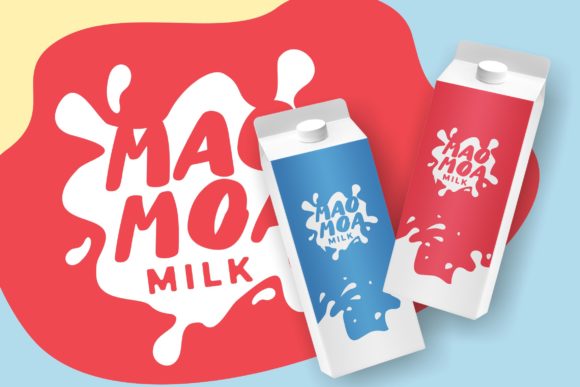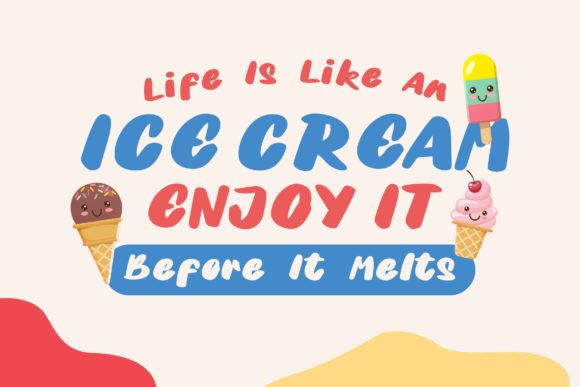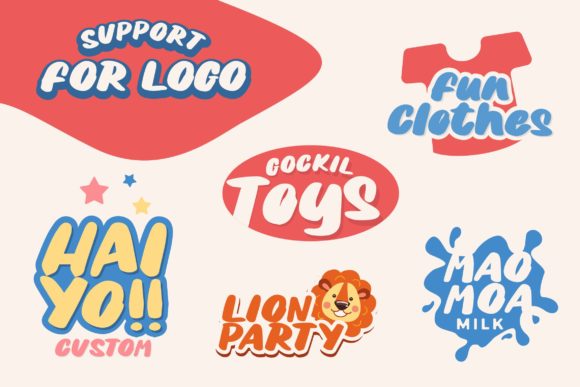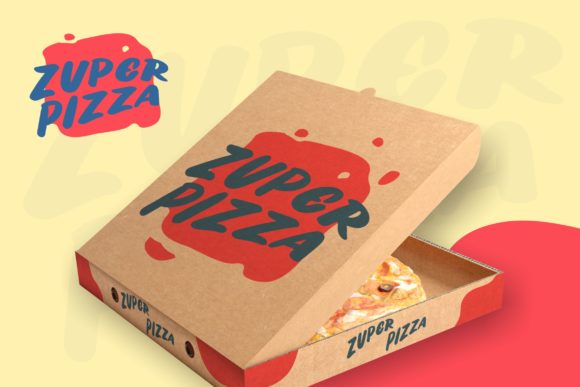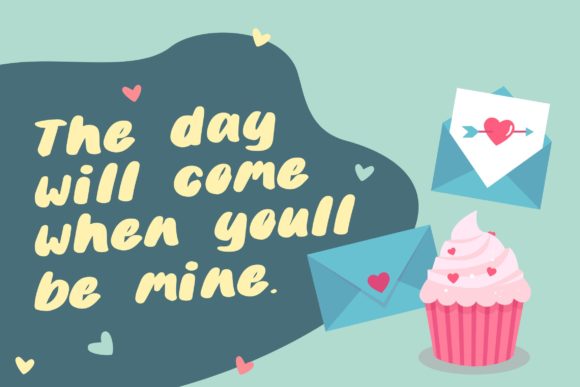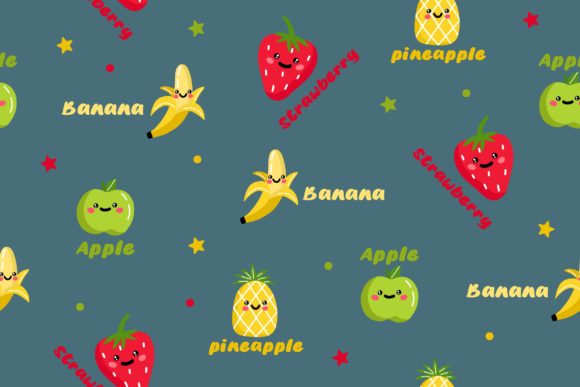
The Joy of Bobaniac Font
Have you ever sat in front of your computer, staring blankly at a blank page, trying to come up with the perfect design concept? The cursor blinks, and the words won’t come. But then, something magical happens. You stumble upon the perfect font, and suddenly, your design comes alive!
Enter Bobaniac Font, a delightful display font that’s as playful as it is authentic. This chunky lettered font is tailor-made for children’s activities and school projects, where a dash of whimsy and fun is always a welcome addition. With Bobaniac Font, you can add a touch of personality to your designs and make them truly unforgettable.
As a designer, you know that the right font can make all the difference in bringing your vision to life. And with Bobaniac Font, you can trust that you’re getting a font that’s not only visually appealing but also easy to work with. So why settle for a boring, generic font when you can add a splash of color and fun to your designs with Bobaniac Font?
Key Features of Bobaniac Font
- Unique Characteristics: The Bobaniac Font is known for its unique blend of futuristic and vintage elements, with a distinctive style that is both modern and nostalgic.
- Font Style: The font has a bold, sans-serif style with a rounded edge, making it perfect for use in titles, headings, and other display text.
Bobaniac Font Review
Overall, I was excited to dive into the Bobaniac Font, but unfortunately, it didn’t quite meet my expectations. That being said, there are some things that shine through.
- The Bobaniac Font has a unique, quirky feel that’s perfect for creative projects or brands that want to stand out.
- The font’s irregularities and imperfections add a touch of personality and make it feel more human.
- The font is highly legible, even at small sizes, which is a must for any font.
- The font’s irregularities, while charming, can also make it difficult to read at times.
- The font’s width and spacing can be inconsistent, leading to awkward line breaks and uneven text.
- The font lacks a clear, cohesive style direction, making it harder to use effectively in various design contexts.
Overall, I’d give the Bobaniac Font 3 out of 5 stars. While it shows promise, it needs some refinement to become a truly effective and versatile font. With some tweaks to address its limitations, I think it could be a real winner.
Tips for Getting the Most Out of the Bobaniac Font
Use the Bobaniac font to add a touch of elegance and sophistication to your designs. Experiment with different font sizes and colors to create visual interest. Combine the font with other design elements, such as images and graphics, to create a cohesive look.
The Bobaniac font is ideal for:
- Editorial and publishing designs
- Wedding and event branding